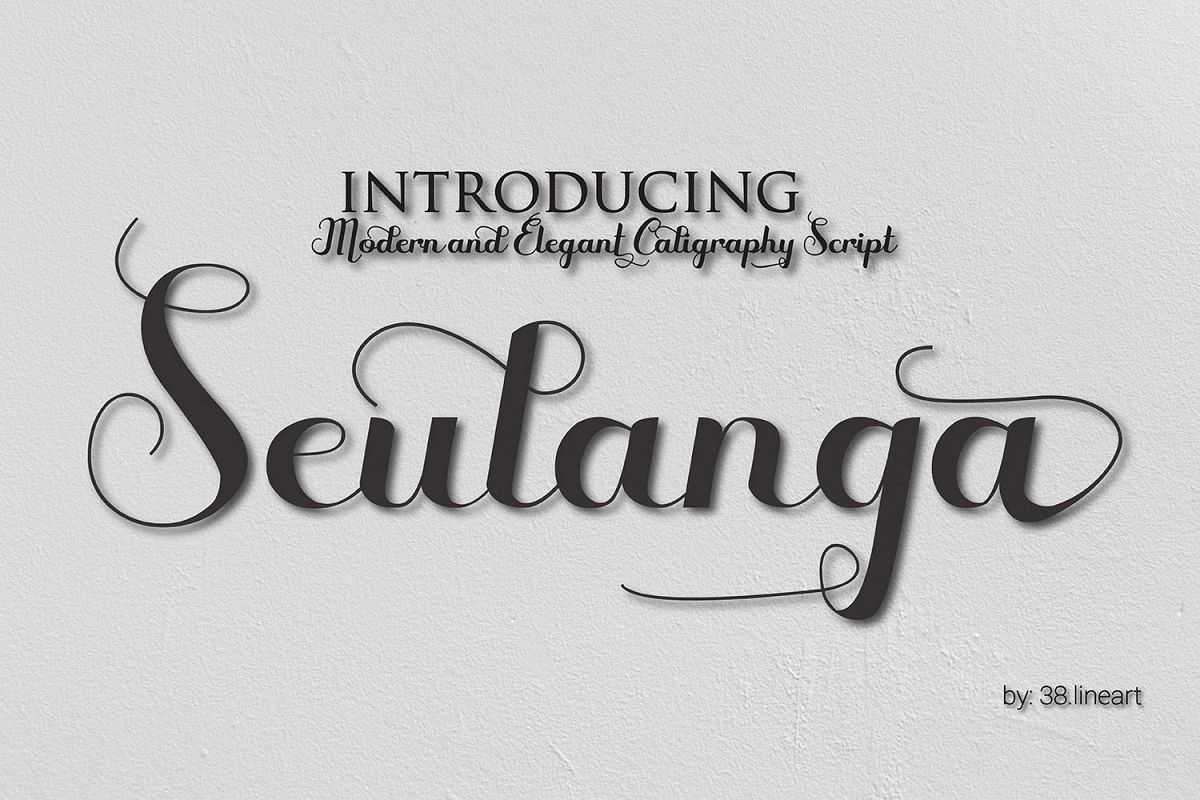
Seulanga
Seulanga-Regular
Seulanga is modern script font, every single letters have been carefully crafted to make your text looks beautiful. With modern script style this font will perfect for many different project ex: photography, watermark, quotes, blog header, poster, wedding, branding, logo, fashion, apparel, letter, invitation, stationery, etc.This font including alternate glyph. You can access the alternate glyph via Font Book (Mac user) or Windows Character Map (Windows user),